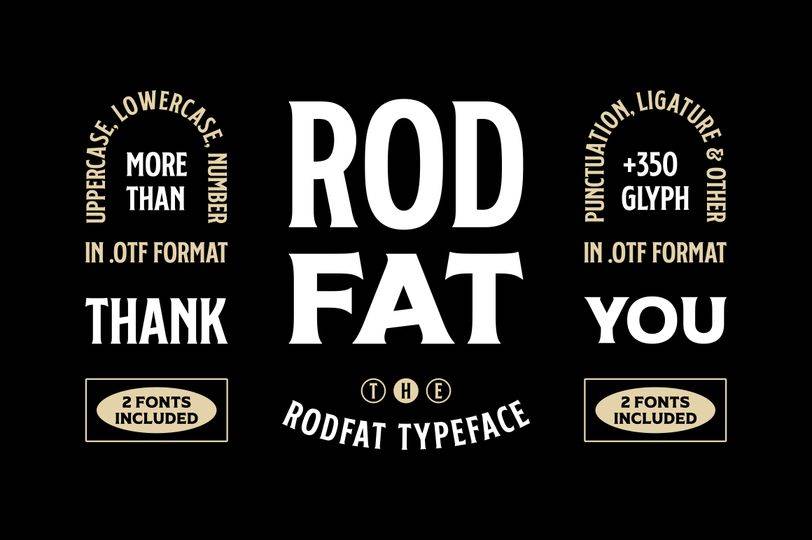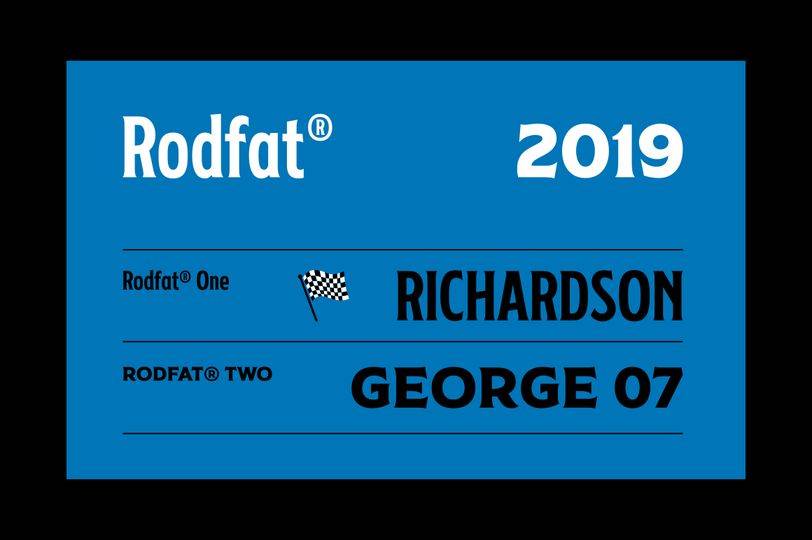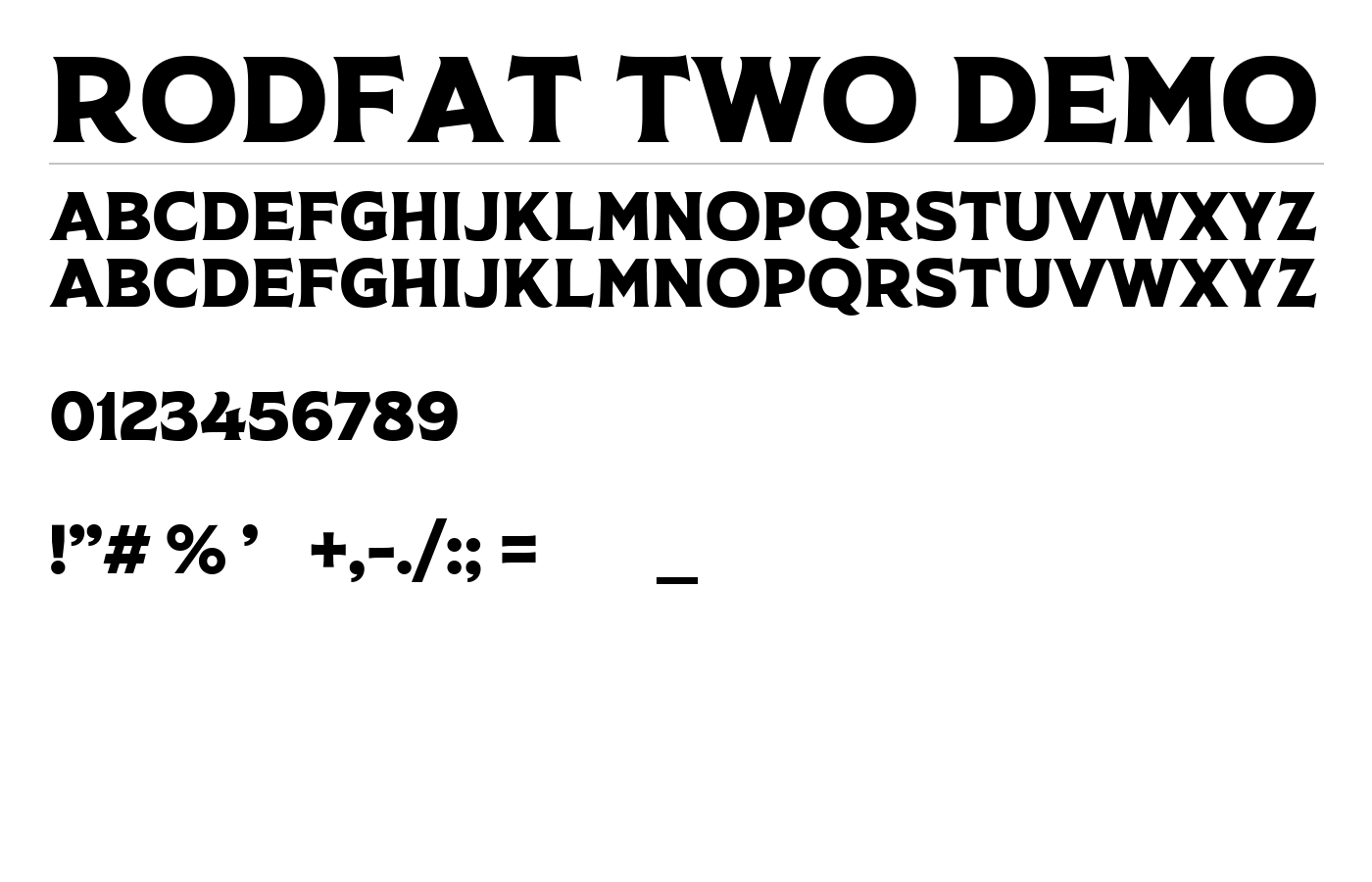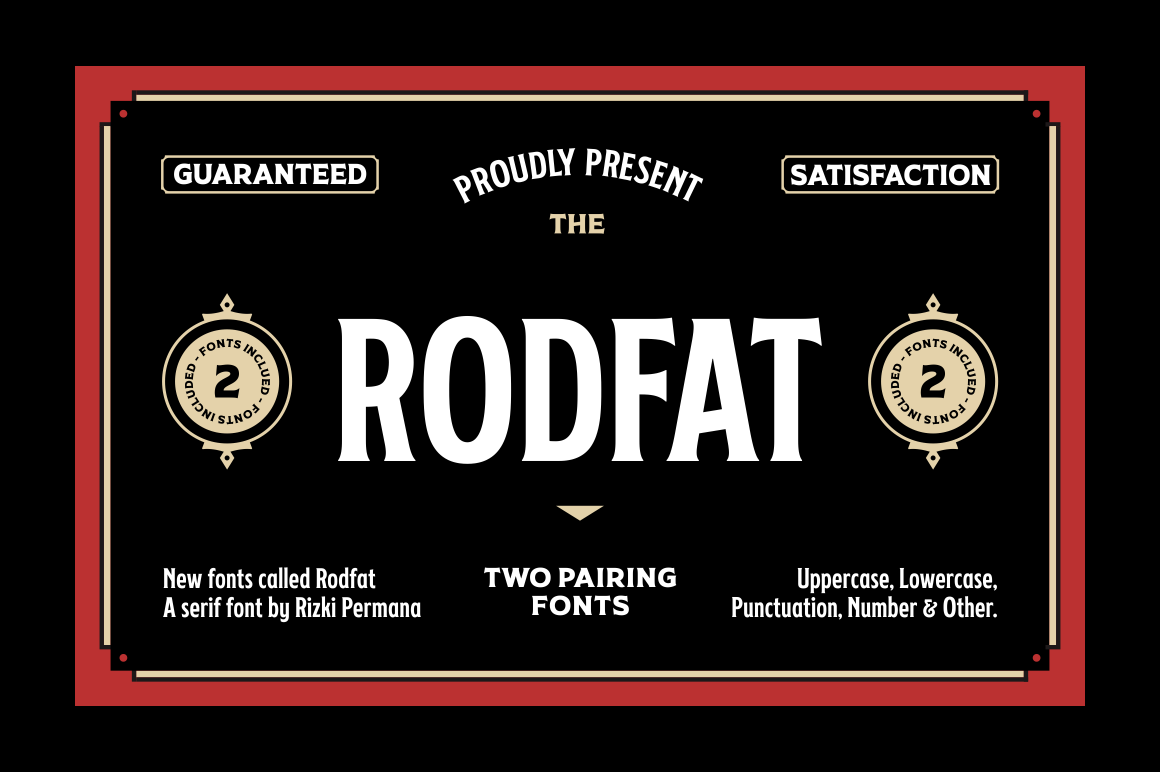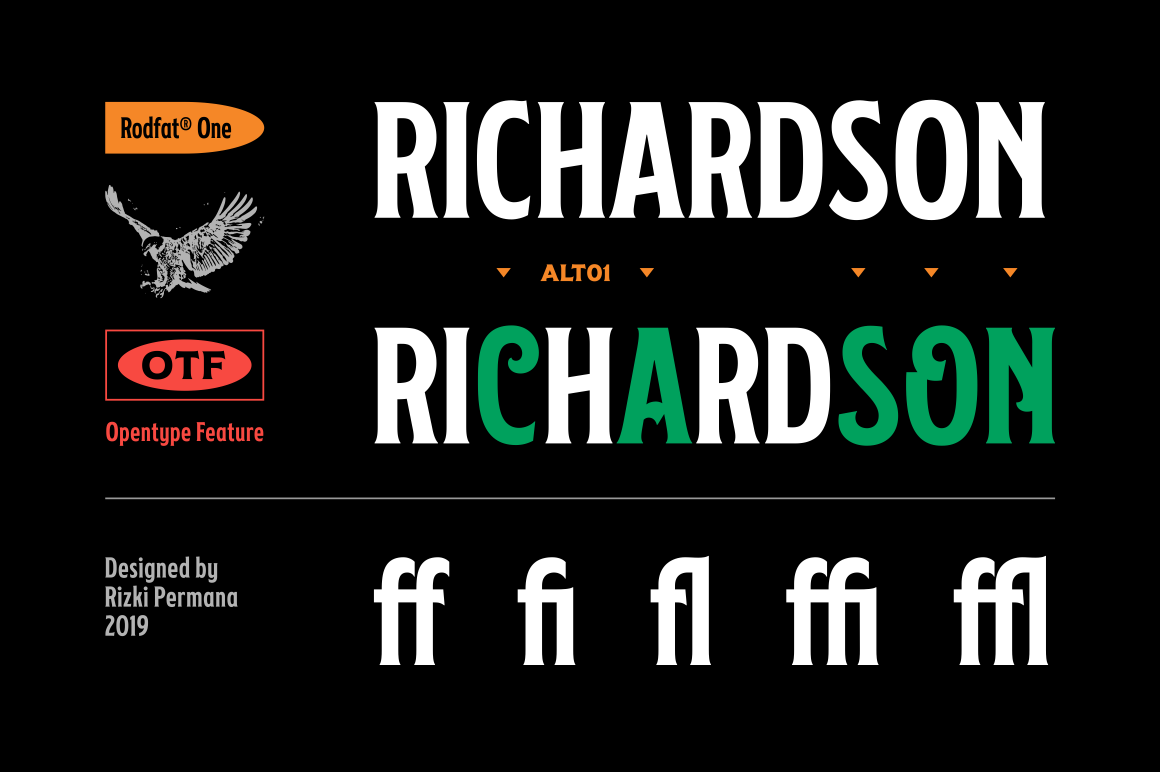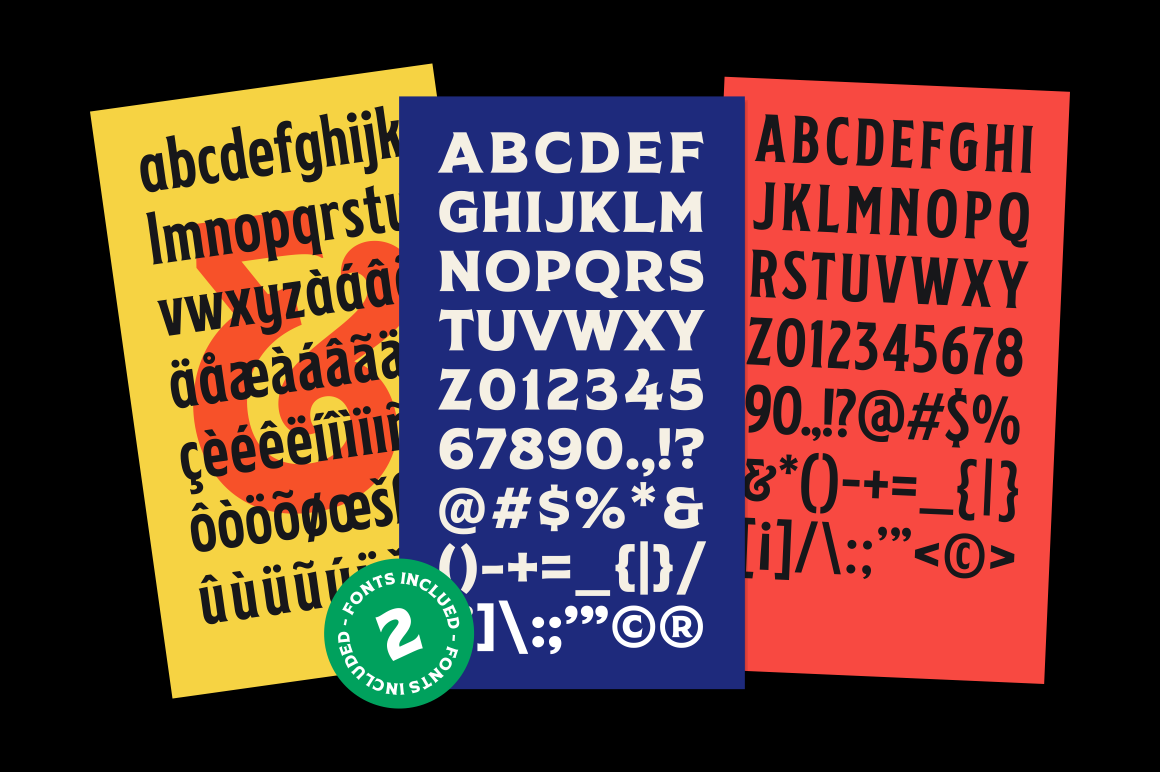
Rodfat is a bold, serif typeface with a sturdy, geometric structure and high stroke contrast that gives it a strong, confident presence. Its angled serifs and unique letter shapes add a distinctive, slightly vintage touch, making it well-suited for impactful headlines, branding, and editorial designs that need a blend of elegance and assertiveness. This font shines in uses where a bold statement is needed, such as logos, posters, and fashion packaging.
Rodfat
About Rodfat
| Font family | Rodfat |
| Release date | 2019-12-06 |
| Designer | Rizki Permana |